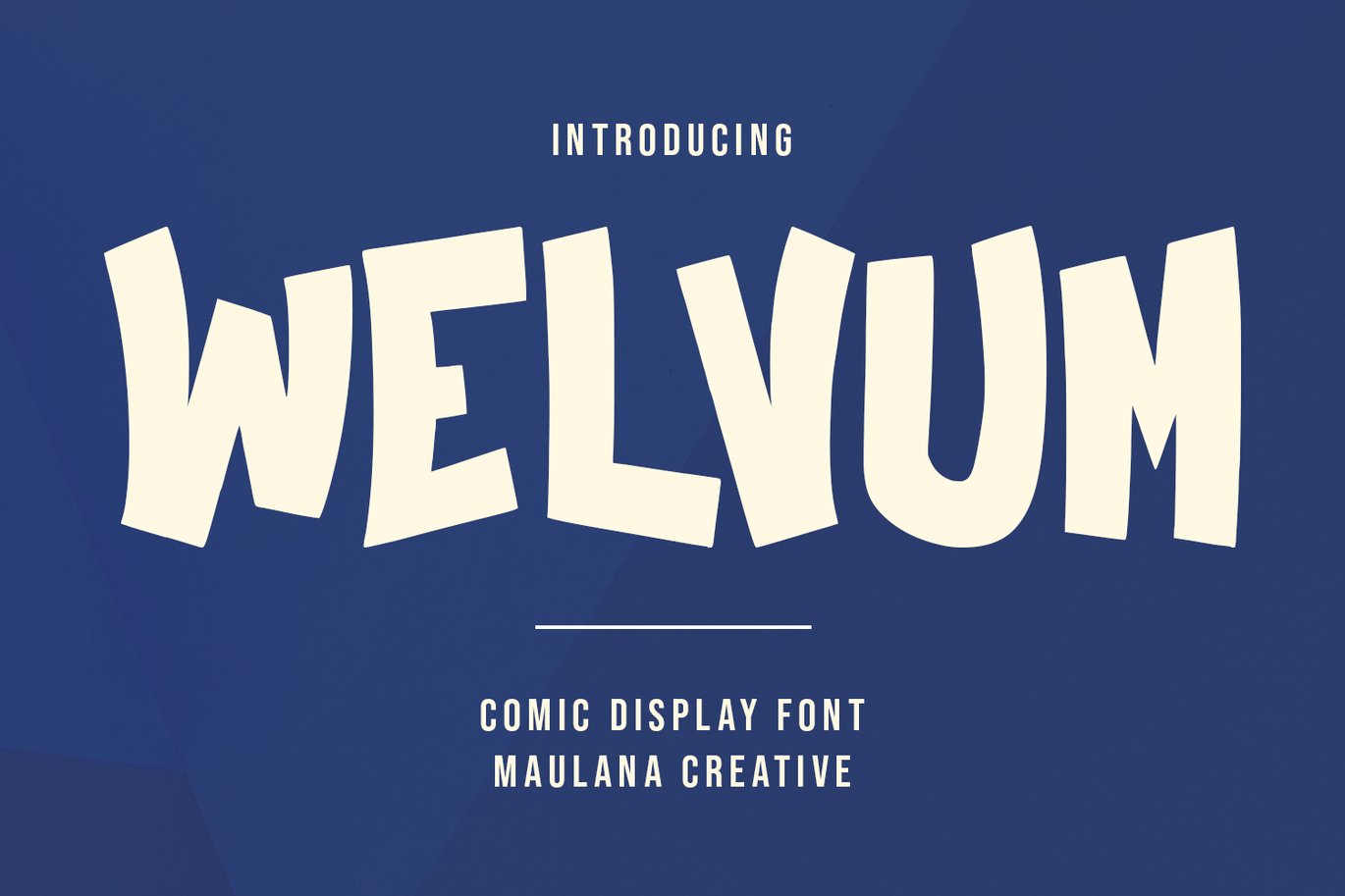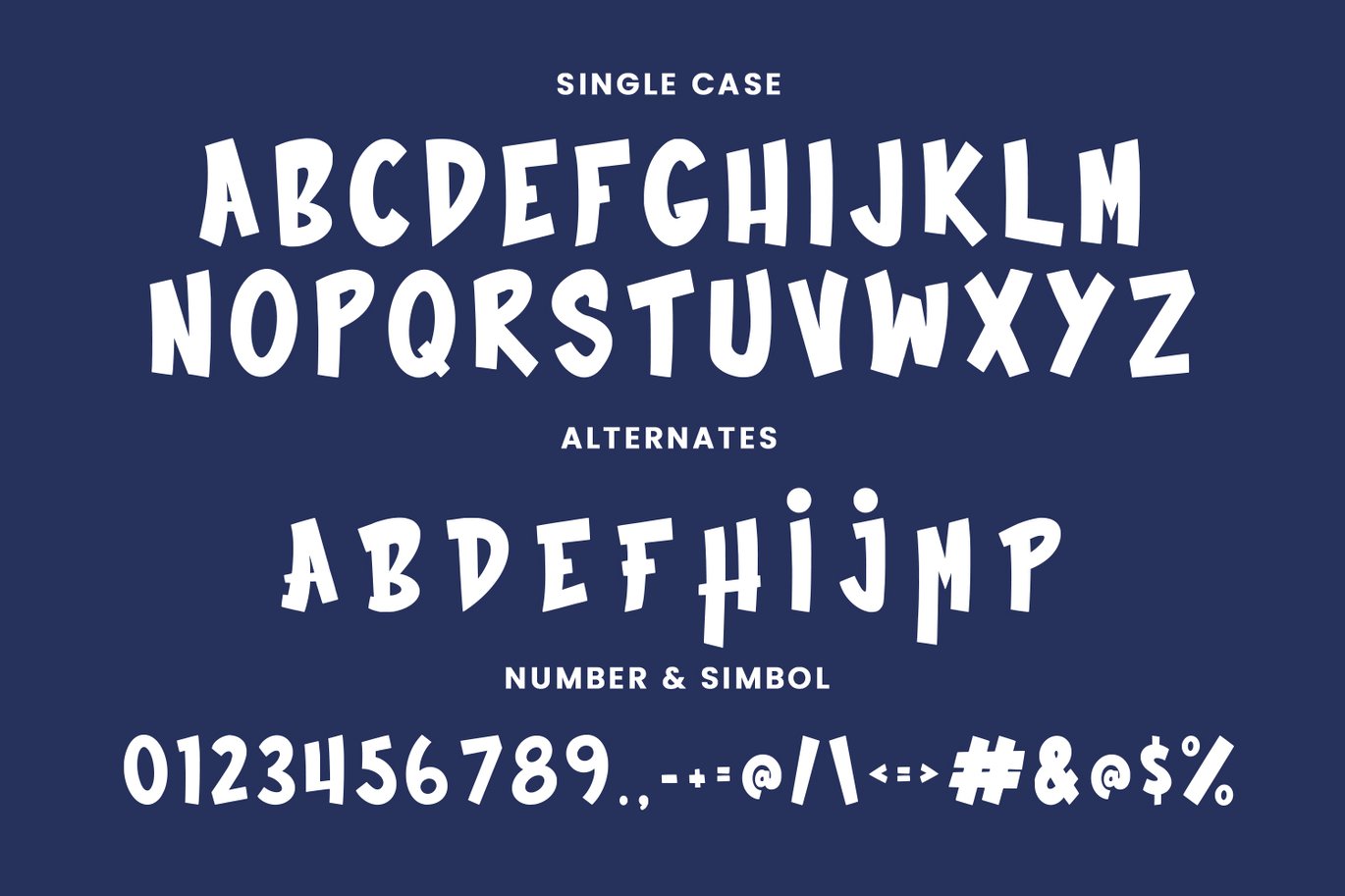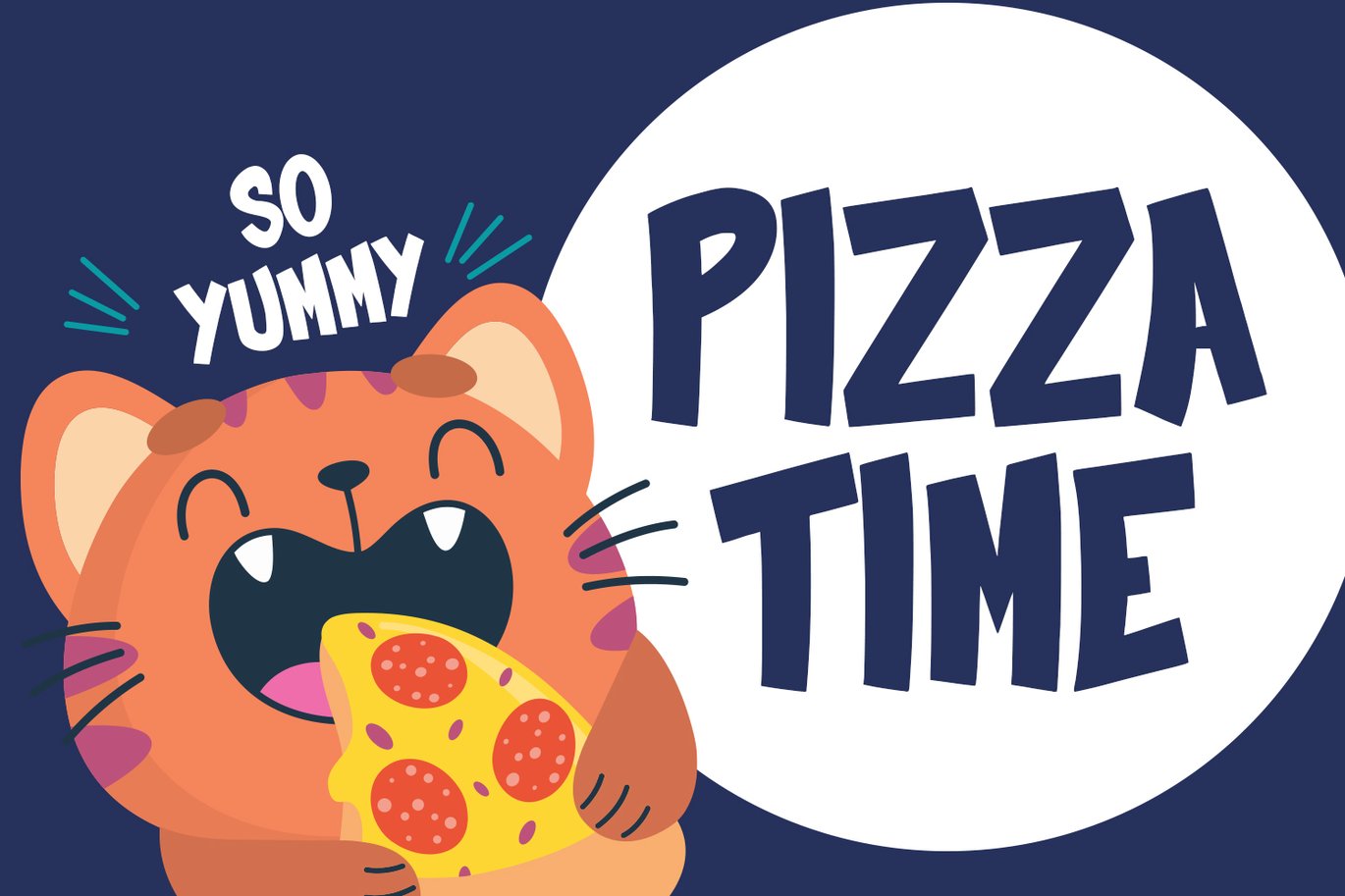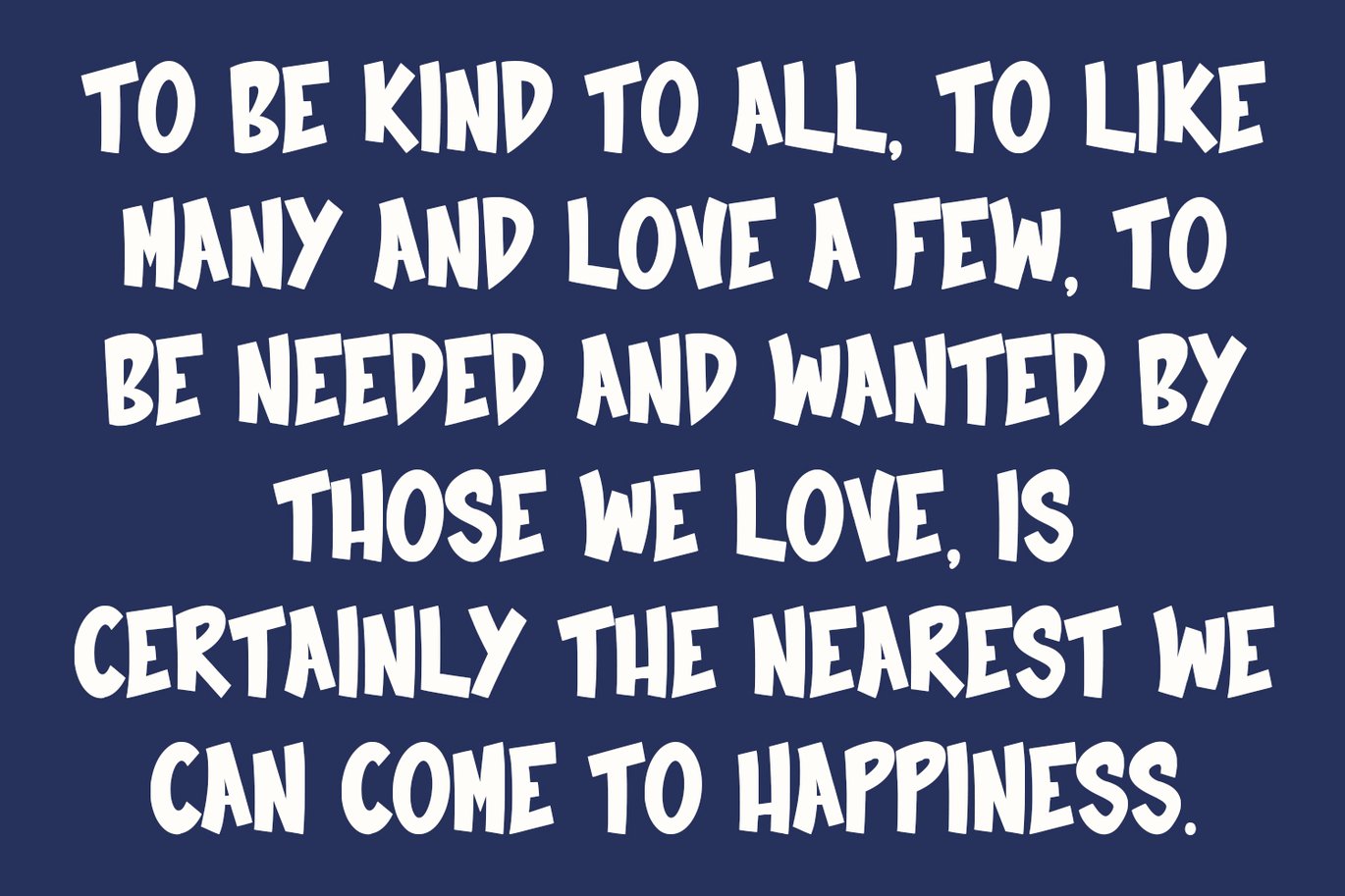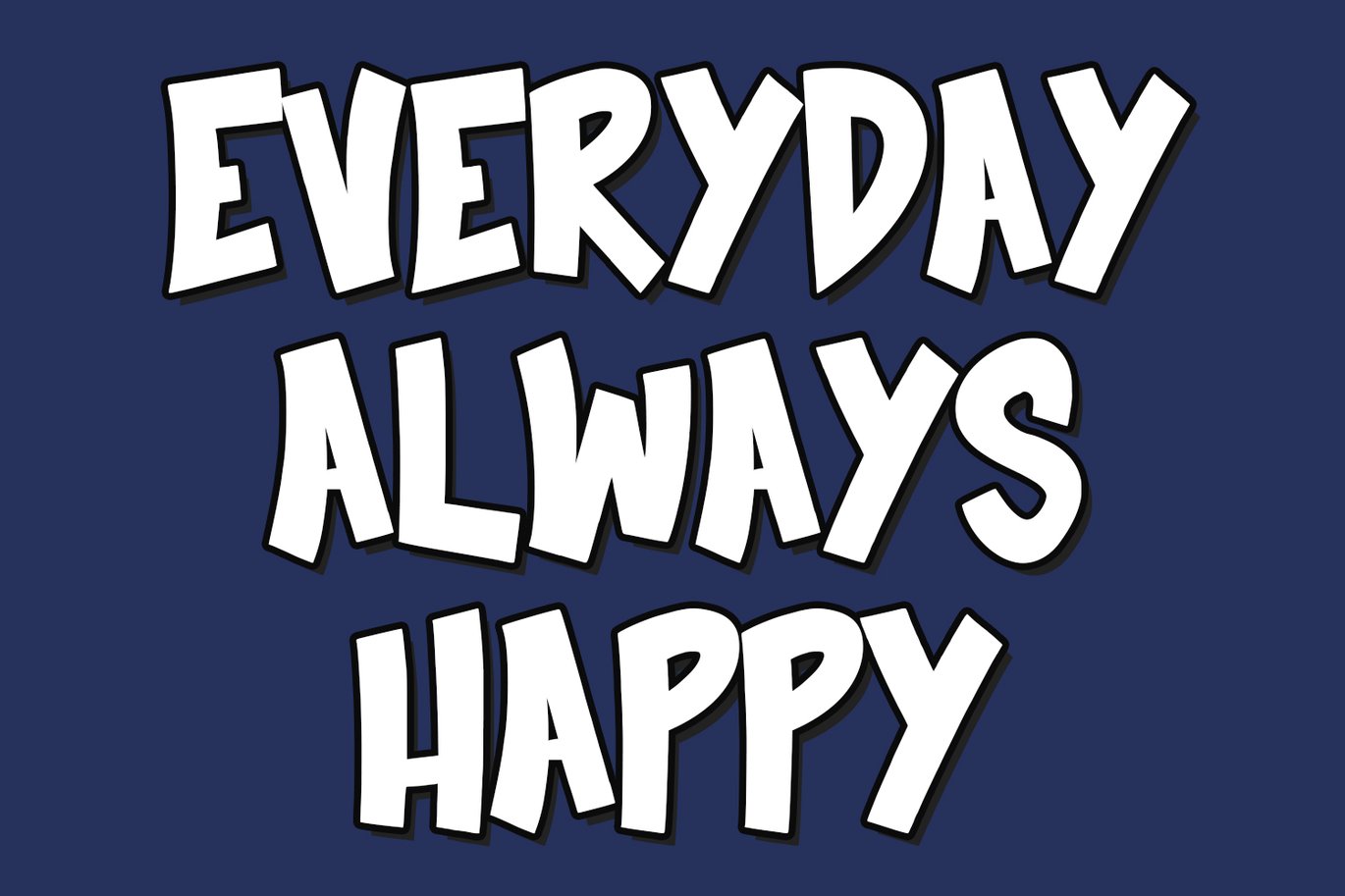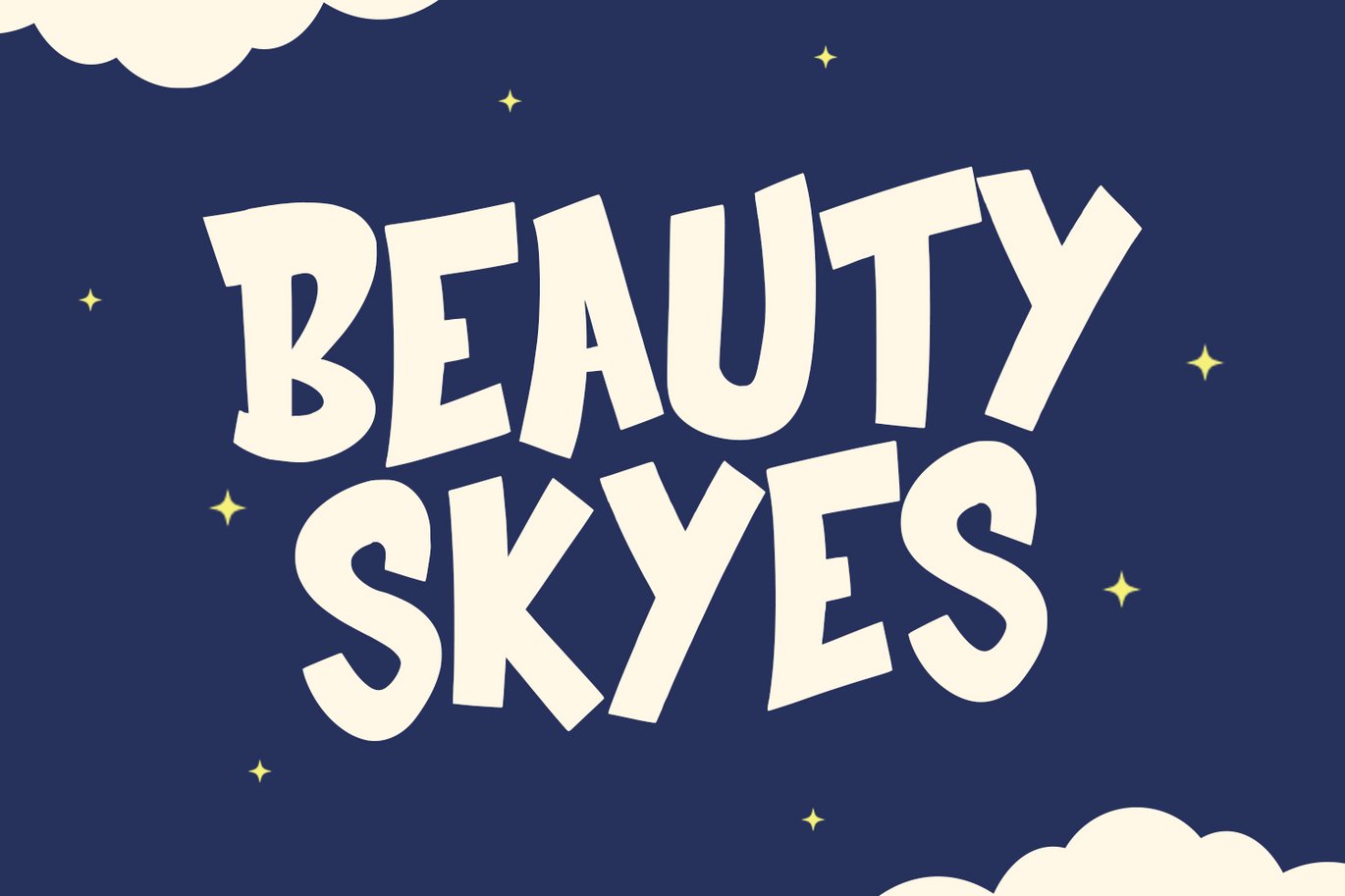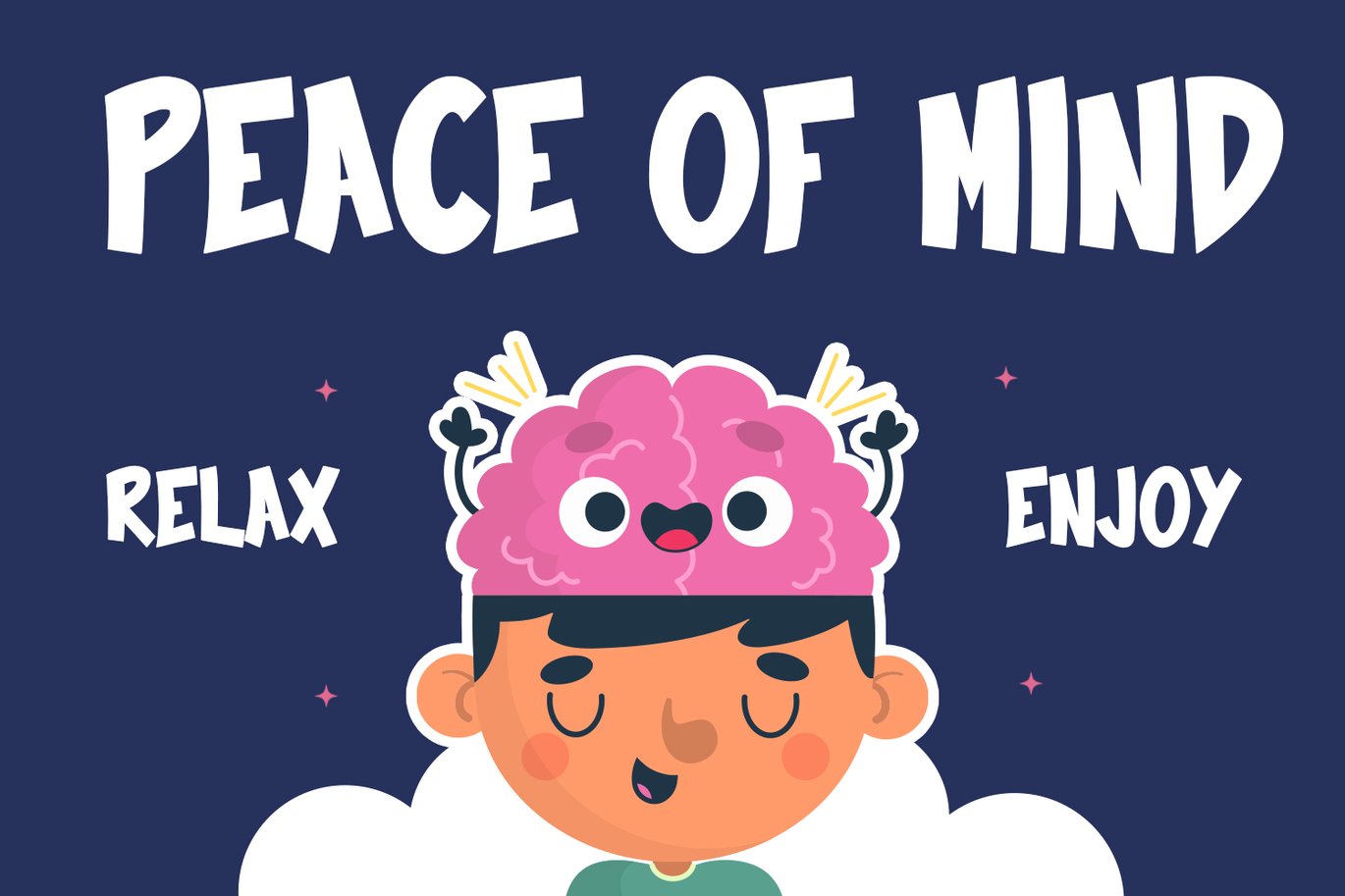
Welvum Comic Display Font
Welvum comic display font. Bold stroke, fun character with a bit of ligatures and alternates. To give you an extra creative work. Welvum comic display font support multilingual more than 100+ language. This font is good for logo design, Social media, Movie Titles, Books Titles, a short text even a long text letter and good for your secondary text font with script or serif. Make a stunning work with Welvum comic display font.